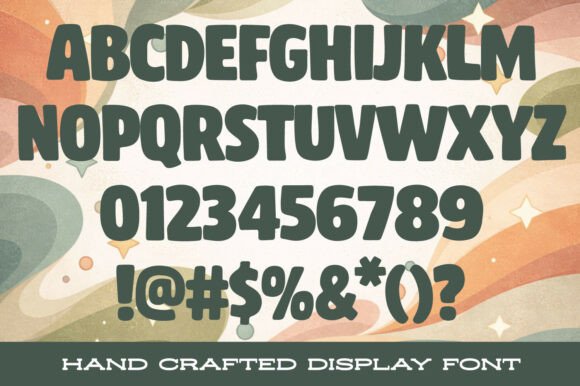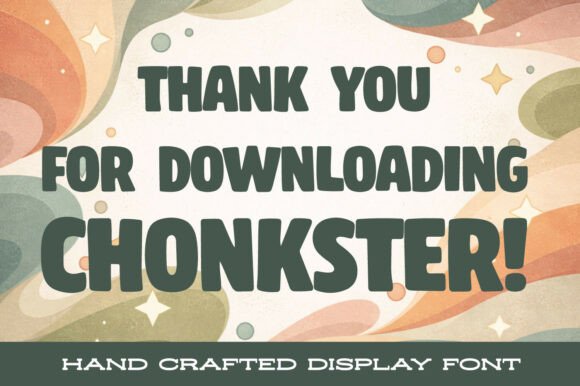
The Ultimate Display Font: Meet Chonkster
Have you ever been in the middle of a design project, and suddenly, you’re stuck on finding the perfect font? I recall a particularly frustrating experience while working on a branding project for a trendy craft brewery. My client wanted a font that was bold, fun, and approachable, but everything I tried seemed either too boring or too over-the-top. That’s when I stumbled upon Chonkster, a bold, chunky display font that instantly caught my attention.
Chonkster is more than just a font – it’s a statement piece. Its thick, rounded forms and slightly irregular shapes give it a playful, hand-crafted feel while still packing a strong visual punch. In this article, we’ll dive into what makes Chonkster so special, its uses, and how to make the most of it in your designs.
First Impressions: What I Love About Chonkster
- ✨ Unique personality: Chonkster has a distinct character that sets it apart from other bold fonts.
- ✅ Versatility: It’s perfect for a wide range of applications, from eye-catching headlines and branding to packaging and posters.
- 💬 Readability: Despite its chunky appearance, Chonkster remains surprisingly readable, even at smaller sizes.
- 🎨 Aesthetic flexibility: The soft edges keep it friendly and approachable, while the heavy weight delivers serious presence.
Honest Review: The Not-Perfect-but-Almost-There Part
No font is perfect, and Chonkster has a few quirks:
- 🤔 Limited use cases for body text: Due to its bold nature, Chonkster is best used for headlines and titles rather than body text.
- ⚠️ Some irregularities in kerning: As with any font, especially those with a hand-crafted feel, you might notice some irregularities in kerning that require manual adjustment.
The Story Behind Chonkster
Chonkster was conceived by a team of designers who wanted to create a font that embodied both fun and confidence. Drawing inspiration from hand-painted signage and comic book lettering, they aimed to produce a typeface that would stand out in any design while still being approachable. Through a meticulous process of refinement, Chonkster was born – a bold, eye-catching font that has quickly become a favorite among designers.
| Font Name | Chonkster Font |
| Author | stompstock |
| What is Chonkster best used for? | Chonkster is ideal for eye-catching headlines, branding, packaging, posters, and any design that needs a bold yet friendly touch. |
| Is Chonkster suitable for body text? | Due to its bold nature, Chonkster is best used for titles and headings rather than body text. |
| Does Chonkster support OpenType features? | Yes, Chonkster supports various OpenType features, allowing for a range of stylistic alternates and glyphs to enhance your typography. |
Chonkster is more than just a font; it’s a design statement. With its bold, chunky appearance and friendly vibe, it’s perfect for designers looking to add a touch of personality to their work. Whether you’re creating a brand identity, crafting a poster, or designing packaging, Chonkster can help you make a lasting impression.